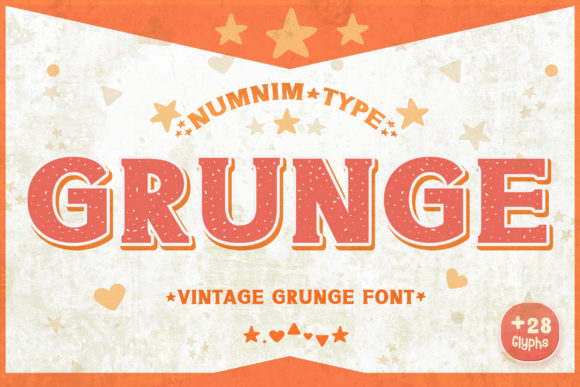
Introducing the Grunge Font, the epitome of cool, bold, and vintage style in the world of display fonts! Crafted with passion by the talented numnim, this font is a must-have for anyone seeking to add a touch of edginess to their projects.
Are you a creative spirit looking to make a statement? Look no further! Grunge Font is the perfect choice for all your crafting endeavors. Whether you're a DIY enthusiast or a professional artist, this font will elevate your designs to new heights of creativity.
Digital designers, rejoice! With its distinctive and eye-catching appeal, Grunge Font is the ultimate tool to captivate your audience. Watch as your website, social media posts, and digital art projects come to life with this unique and thrilling font.
Presentations just got a whole lot more exciting! Impress your colleagues, clients, and friends with the captivating power of Grunge Font. Its bold and rebellious nature will command attention and leave a lasting impression on anyone who lays eyes on your slides.
Greeting cards hold a special place in our hearts, and Grunge Font understands that sentiment perfectly. Express your deepest emotions and heartfelt messages with this font's unrivaled charm. From birthday wishes to love letters, Grunge Font will ensure that your words are beautifully showcased.
But that's not all! Grunge Font goes above and beyond by offering a PUA encoding feature. This means that accessing all the amazing glyphs and swashes is a breeze! Let your creativity run wild as you effortlessly explore the various possibilities this font has to offer.